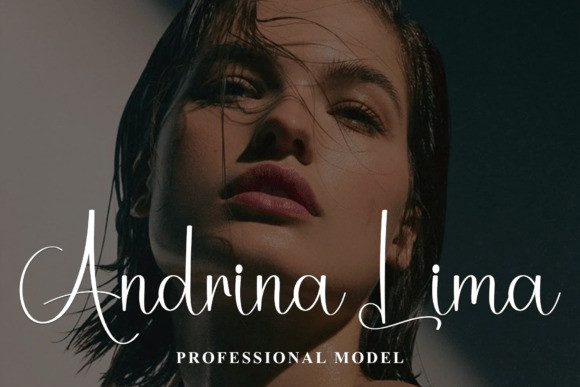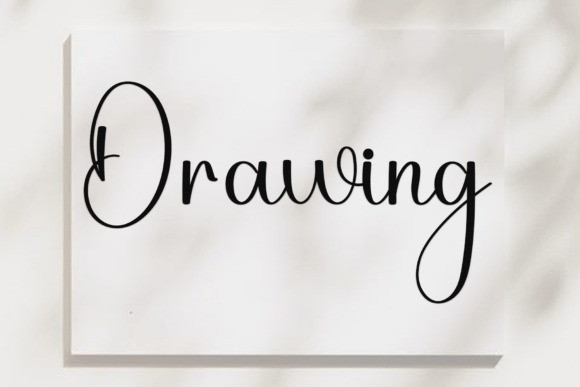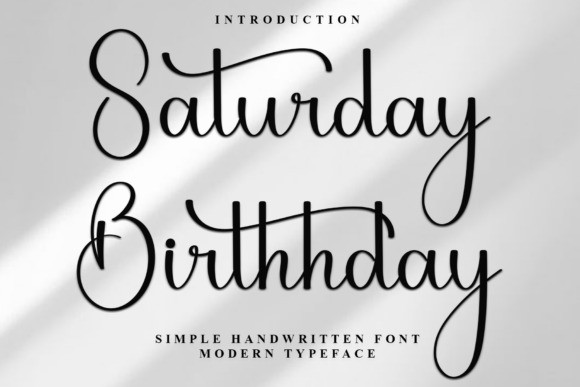
Saturday Birthday Font
Saturday Birthday Font is a lovely and timeless handwritten font. It is the best choice for creating eye catching logos, branding and quotes. Every letter has a unique and beautiful touch, which will make your design come alive!